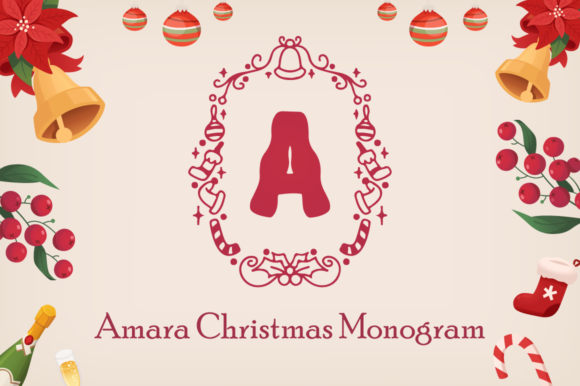
The Magic of Amara Christmas Monogram Font: A Designer’s Delight
It’s the most wonderful time of the year – and I’m not just talking about the holiday season! As a designer, I know that finding the perfect font for a project can be a challenge, especially when you’re aiming for that extra special something. I recall working on a Christmas-themed children’s book cover, determined to create something that would capture the essence of joy and festivity. After hours of scouring through font libraries, I stumbled upon the Amara Christmas Monogram Font. It was love at first sight! 🎉
Let’s dive into the good stuff – and a few quirks – about the Amara Christmas Monogram Font.
• ✨ Festive and Unique: This font is a real showstopper. Its decorative style is perfect for adding a touch of holiday cheer to any design.
• ✅ Versatile: Whether you’re working on cartoon-related designs, children’s games, quotes, titles, brand names, book covers, or posters, this font fits right in.
• 🎨 Highly Customizable: With OpenType features and glyphs, you can easily alternate letters and create stunning monograms.
• 🤔 Limited Use Cases: While the font is incredibly versatile, its festive nature might limit its use to seasonal projects or specific themed designs.
• ⚠️ Requires Some Font Knowledge: To get the most out of Amara Christmas Monogram, you’ll need to familiarize yourself with OpenType features and glyphs. But trust me, it’s worth the effort!
The Story Behind Amara Christmas Monogram: A Designer’s Inspiration
While the true origins of Amara Christmas Monogram remain a mystery, it’s easy to imagine a designer sitting by the fireplace, surrounded by holiday decorations and inspiration. Perhaps they wanted to create a font that would bring joy to children’s books, games, and festive projects. Whatever the story, Amara Christmas Monogram is a delightful addition to the world of typography.
Q: Does Amara Christmas Monogram support OpenType features?
A: Yes, Amara Christmas Monogram comes with OpenType features, allowing you to access a range of glyphs and stylistic alternates to customize your text.
Q: Is Amara Christmas Monogram easy to read?
A: While the font is decorative, it remains surprisingly legible, making it suitable for both titles and longer text passages.